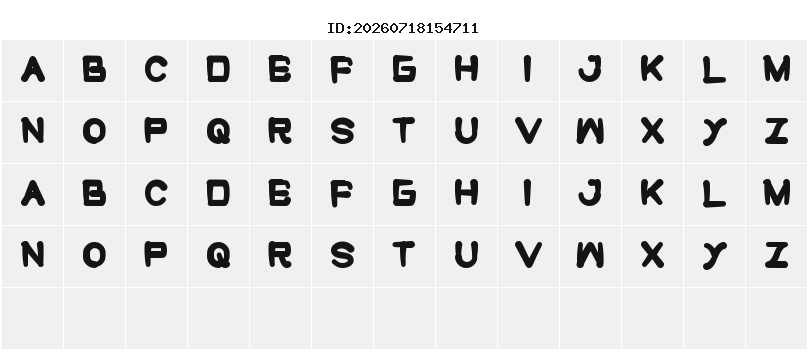
cute monster Preview
• Font Name: cute monster
• Font ID: cute monster:Version 1.00
• Full Font Name: cute monster
• Version: Version 1.00 July 29, 2013, initial release
• PostScript Name: cutemonster
About cute monster.ttf
cute monster.ttf is a modern, elegant sans-serif font designed for ultimate readability and visual harmony. Perfect for branding, headlines, web design, and print materials.